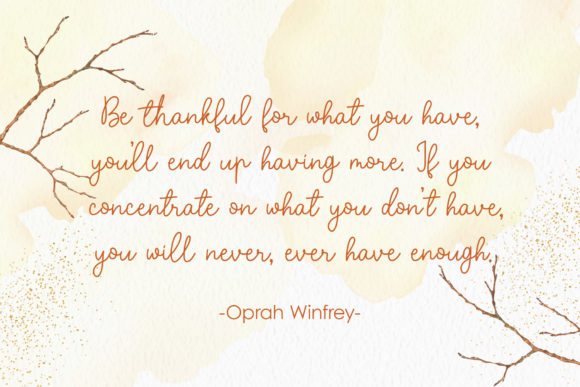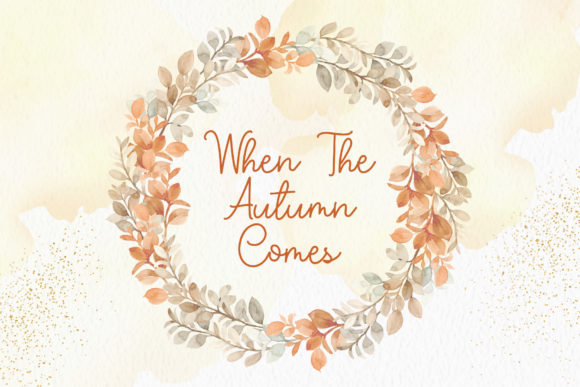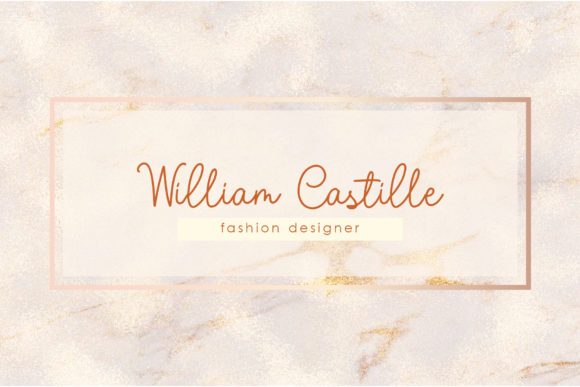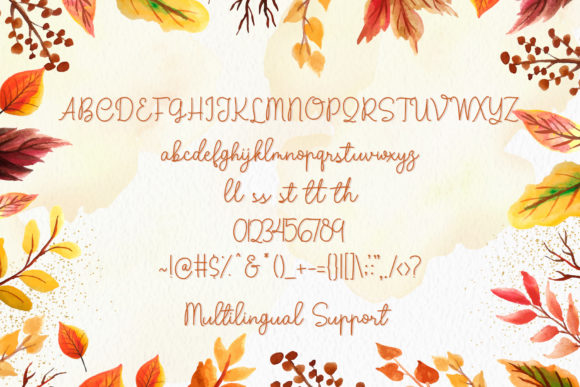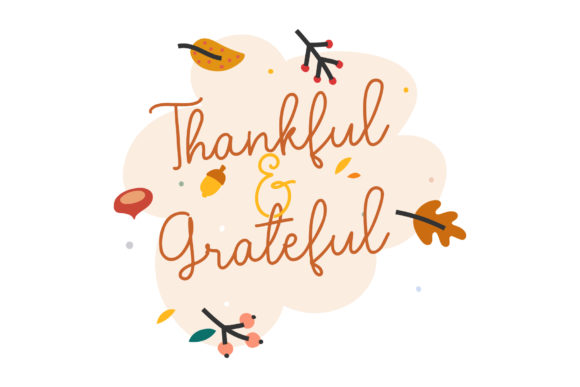
Introduction to Pear Leaves Font
As a designer, have you ever stared at a blank canvas, waiting for that perfect spark to ignite your creative project? For many of us, it’s the little details that make all the difference – the subtle curves, the delicate strokes, and the elegant flourishes that bring our designs to life. And when it comes to creating a truly unique and captivating visual identity, the right font can be the key to unlocking your full potential.
Enter the Pear Leaves Font – a beautiful, handwritten font that exudes elegance and sophistication. With its delicate characters and well-balanced design, it’s the perfect addition to any creative project, whether you’re working on a high-quality brochure, a website with a transparent background, or a design resource that requires a touch of whimsy.
Key Features of Pear Leaves Font
- Unique, delicate design featuring intricate pear leaves and stems, perfect for adding a touch of elegance to any project.
- Perfect for use in digital and print media, including logos, graphics, and typography-based designs.
Honest Review: Pear Leaves Font
One of the things that works well about Pear Leaves Font is its high quality design. The font is elegant and refined, with a beautiful transparent background that makes it perfect for any design project. The style is versatile and can be used for a variety of purposes, from branding to packaging design.
However, I did notice that the font may not be suitable for all types of projects. For example, it may not be the best choice for bold or eye-catching designs, as it’s more subtle and understated.
⚠️ Limitation: May not be suitable for bold or eye-catching designs
Overall, I’m really impressed with the Pear Leaves Font. It’s a great design resource that’s perfect for those who want a high-quality, elegant font for their creative project. ✨
The Pear Leaves Font is a versatile design resource that can be used in various creative projects, such as wedding invitations, business cards, and social media graphics. Its high-quality design and transparent background make it an ideal choice for designers who want to create visually appealing and professional-looking designs.